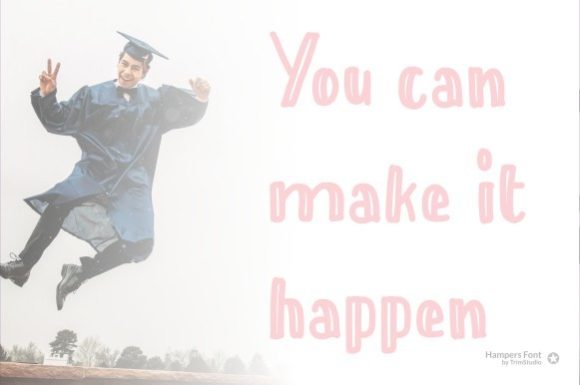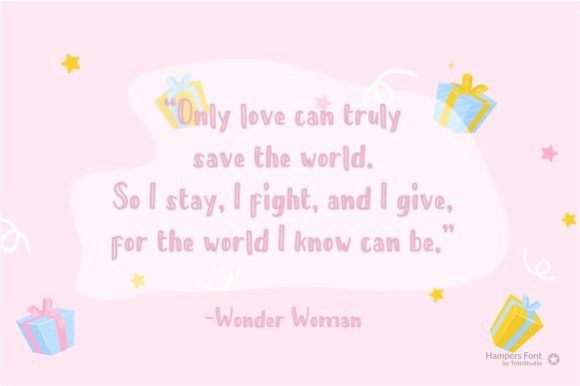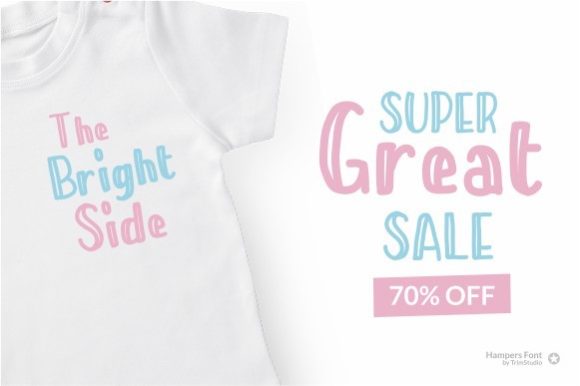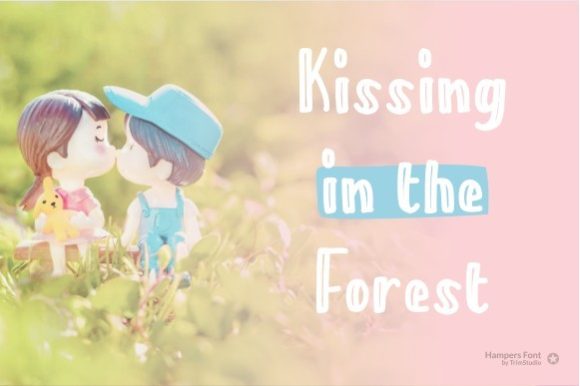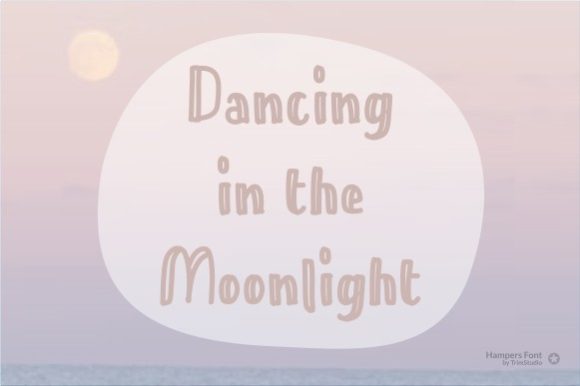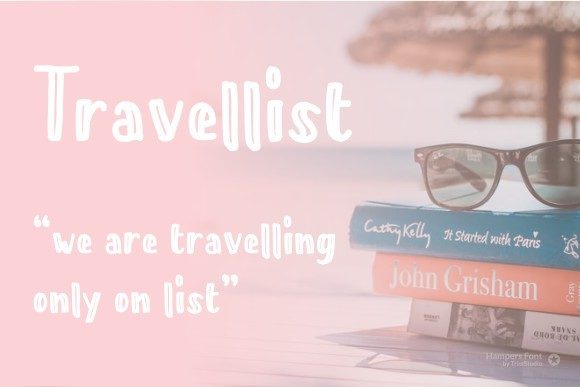
Hampers Font: The Perfect Choice for Crafters and Graphic Artists
Are you a crafter or graphic artist looking for a font that can add a touch of personality to your designs? Look no further than Hampers Font! This cute, friendly, and adaptable display font is perfect for a wide range of projects, from invitations and advertisements to posters, logos, and more.
What is Hampers Font?
Hampers Font is a unique and charming display font that is designed to bring a smile to your face. Its playful and whimsical design makes it perfect for crafters and graphic artists who want to add a personal touch to their work. Whether you’re creating a logo, poster, or invitation, Hampers Font is sure to make your design stand out.
Key Features of Hampers Font
- Cute and Friendly Design: Hampers Font has a playful and approachable design that is sure to appeal to crafters and graphic artists.
- Adaptable: This font is versatile and can be used for a wide range of projects, from display text to logos and more.
- Easily Readable: Despite its playful design, Hampers Font is easy to read, making it perfect for use in a variety of contexts.
- Perfect for Crafting and Graphic Design: Hampers Font is specifically designed with crafters and graphic artists in mind, making it the perfect choice for anyone looking for a unique and versatile font.
Uses for Hampers Font
So, what can you use Hampers Font for? The possibilities are endless! Here are just a few ideas to get you started:
- Invitations: Add a personal touch to your invitations with Hampers Font. Perfect for birthday parties, weddings, and more!
- Advertisements: Make your ads stand out with Hampers Font. Its playful design is sure to grab attention and leave a lasting impression.
- Posters: Create eye-catching posters with Hampers Font. Perfect for promoting events, products, or services.
- Logos: Use Hampers Font to create a unique and memorable logo for your business or brand.
- Product Signs: Add a personal touch to your product signs with Hampers Font. Perfect for craft fairs, markets, and more!
Why Choose Hampers Font?
So, why should you choose Hampers Font for your next project? Here are just a few reasons:
- Unique Design: Hampers Font has a unique and playful design that is sure to make your project stand out.
- Versatile: Hampers Font can be used for a wide range of projects, from display text to logos and more.
In conclusion, Hampers Font is a cute, friendly, and adaptable display font that is perfect for crafters and graphic artists. Its playful design and versatility make it a great choice for a wide range of projects, from invitations and advertisements to posters, logos, and more. So why wait? Download Hampers Font today and start adding a personal touch to your designs!